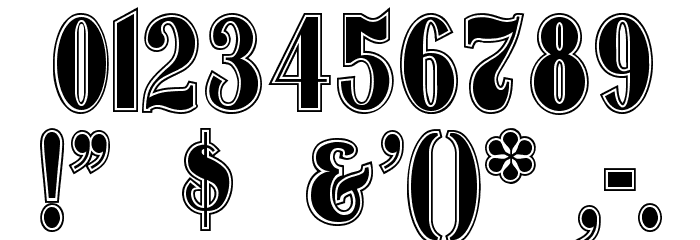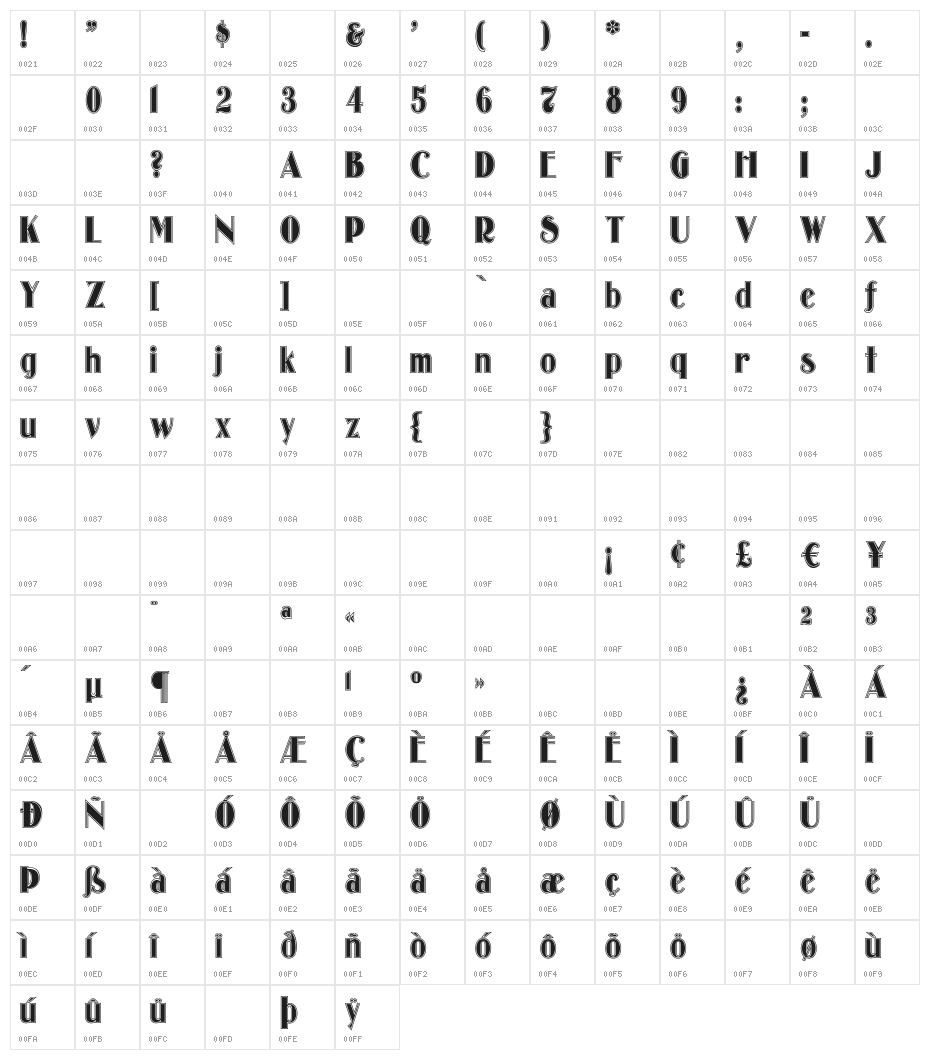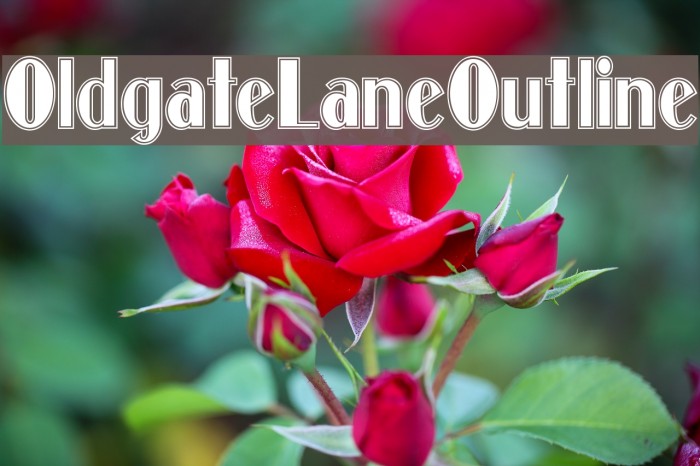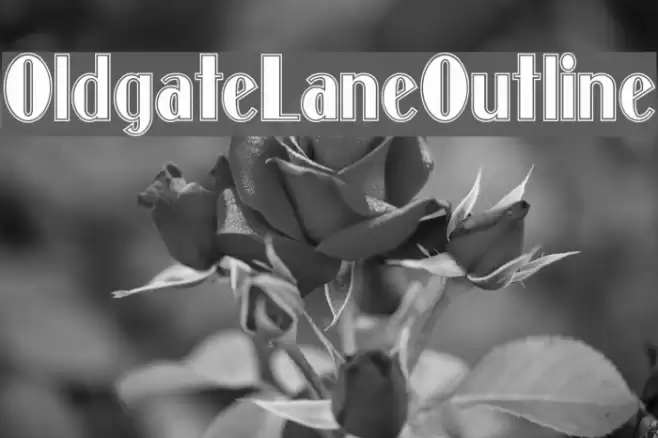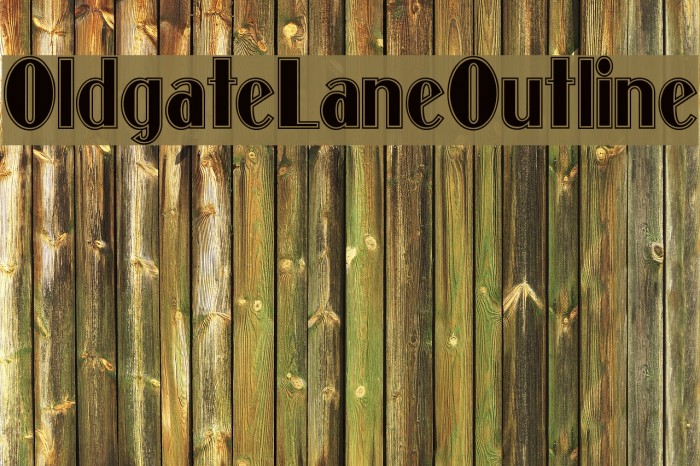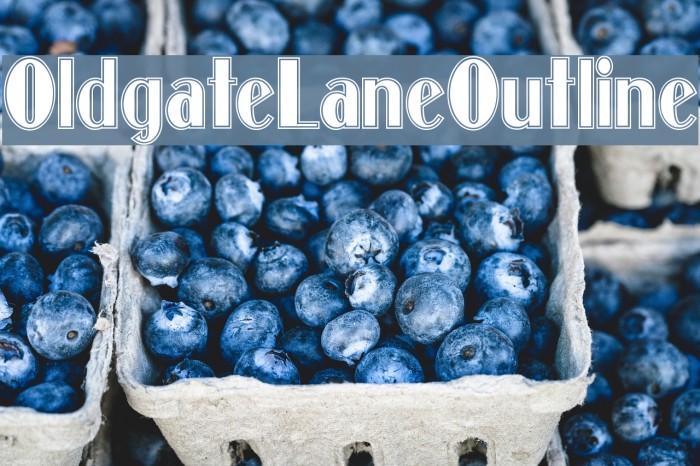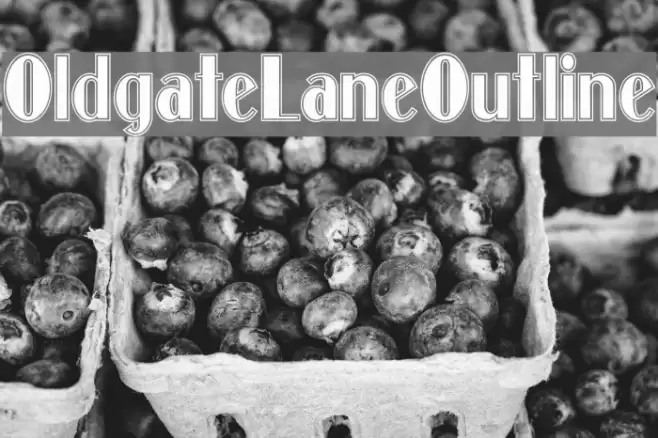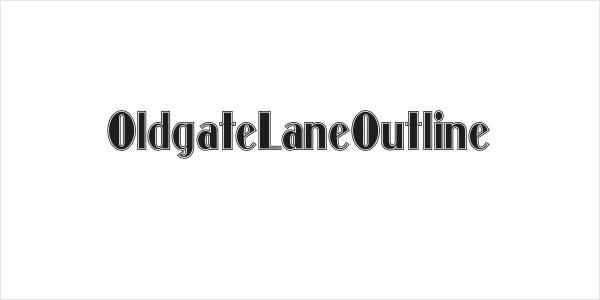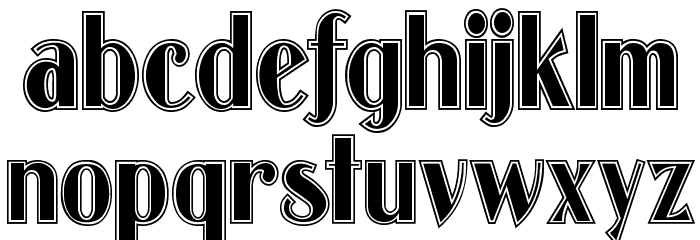
OldgateLaneOutline Font
OldgateLaneOutline Description
This font features a bold, outlined style with a strong presence. The uppercase letters are tall and commanding, while the lowercase letters maintain a consistent height, providing a balanced look. The numbers and special characters follow the same bold outline, ensuring uniformity across all characters. The strokes are thick, with a medium contrast between the filled and outlined areas, giving it a distinct and eye-catching appearance. The overall design is modern with a hint of vintage flair, making it suitable for various creative applications.
| Overall Style | Modern, Vintage |
| Proposed Projects | Ideal for posters, headlines, logos, and branding materials that require a strong visual impact. |